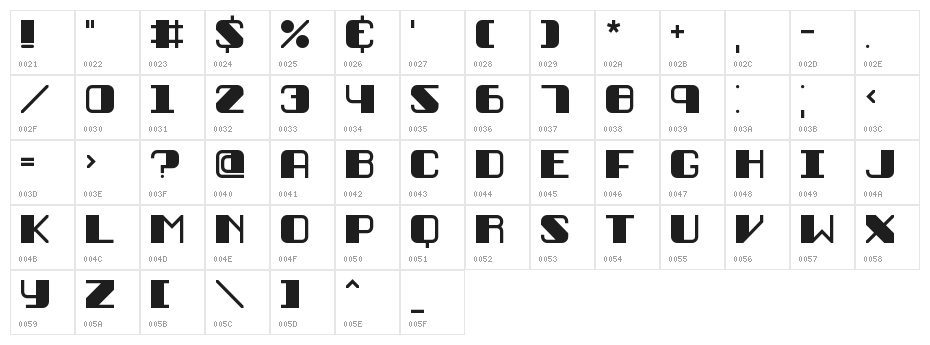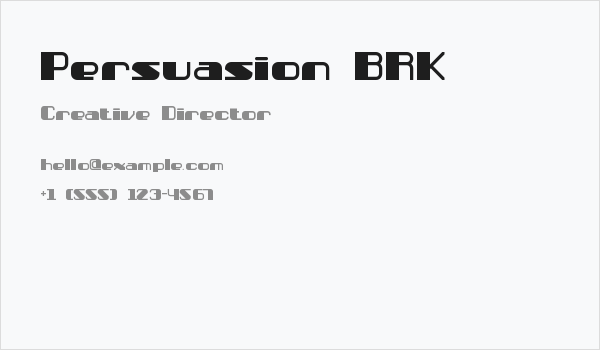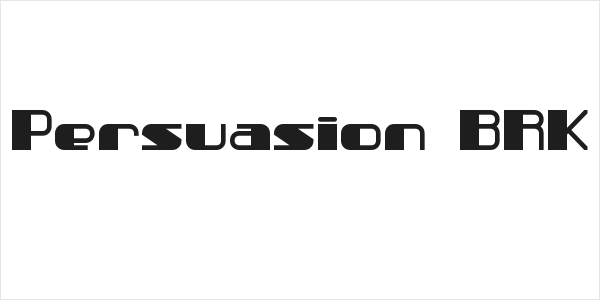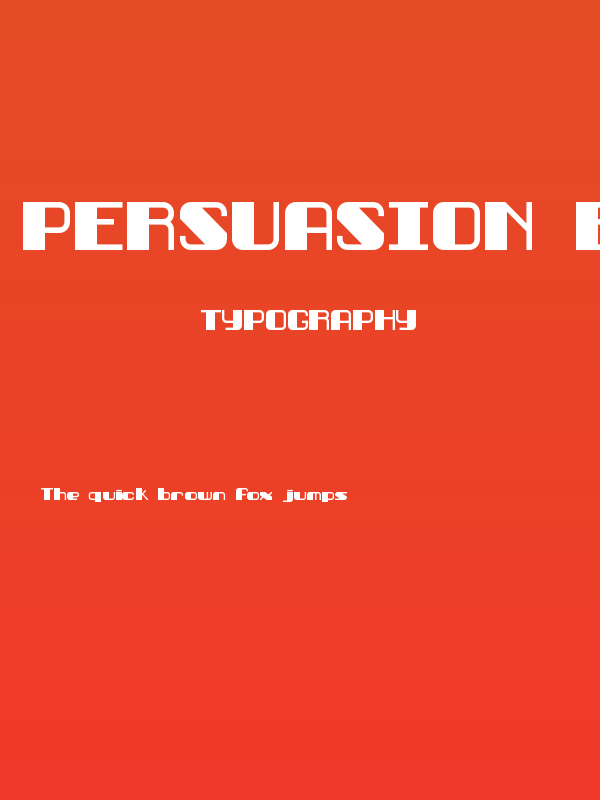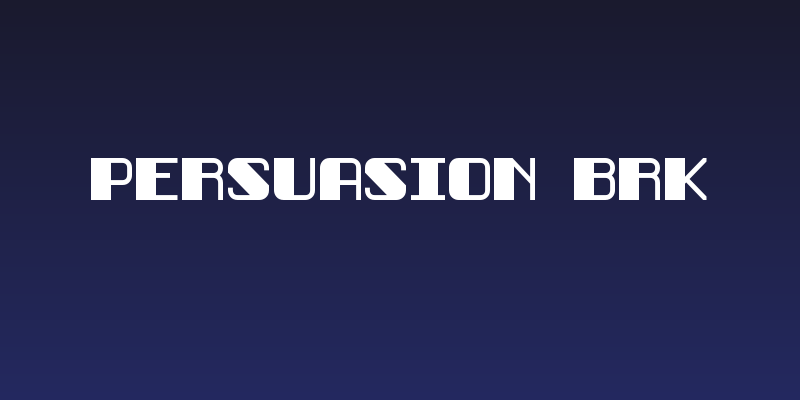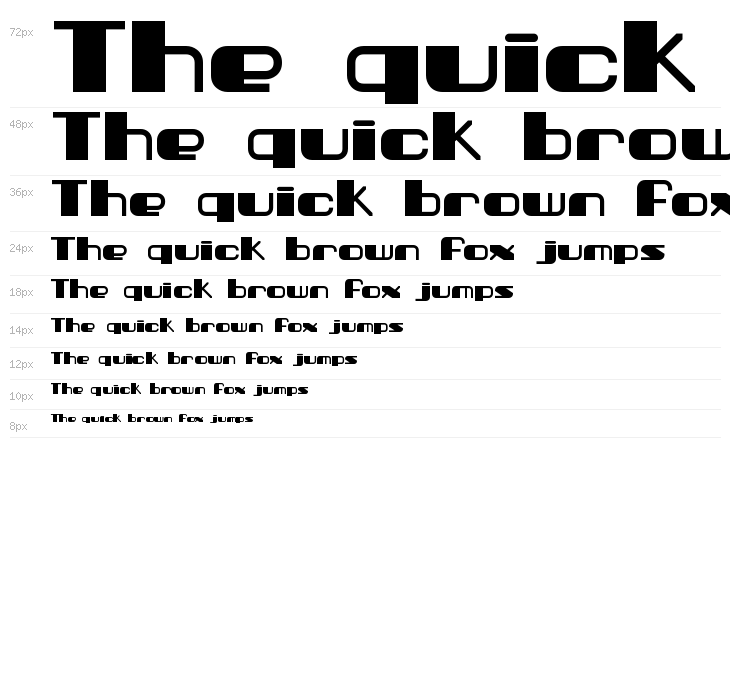
Persuasion BRK Font
Persuasion BRK Description
This font features a bold and modern design with a strong geometric influence. The characters are constructed with solid, block-like shapes, giving them a sturdy and impactful appearance. The uppercase letters are particularly striking, with some characters incorporating unique cutouts and angles that add a distinctive flair. The lowercase letters maintain the boldness of the uppercase, with a slightly more rounded approach, providing a nice balance. Numbers and special characters follow the same design principles, ensuring consistency across all glyphs. This font is ideal for making a statement, with its high visibility and contemporary style.
| Proposed Projects | Ideal for branding, posters, headlines, and any project requiring a strong visual impact. |